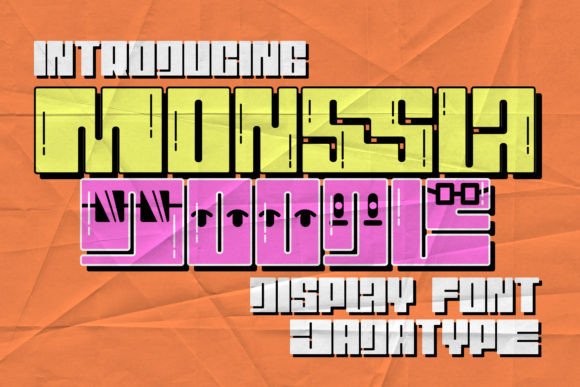
Unleash Your Inner Party Animal with Monssla Font: The Life of Any Design!
Prepare to captivate, inspire, and ignite your designs with Monssla Font, the ultimate display font that embodies the very essence of celebration and joy. Meticulously crafted by jadatype, Monssla is a block-bold font that exudes an infectious energy, making it the perfect choice for your next party-themed design project.
With its dynamic and eye-catching style, Monssla Font has the power to transform ordinary designs into extraordinary masterpieces. Let your creativity soar as you explore a world of possibilities with this remarkable font. Whether you're creating posters that scream excitement, t-shirts that radiate fun, or branding that sparks recognition, Monssla Font is your ultimate companion.
Dive into a realm of endless opportunities with Monssla Font. Its versatility extends far beyond party-themed designs. Its bold and confident strokes make it an ideal choice for branding projects, capturing the attention of potential customers and leaving a lasting impression. Social media platforms come alive with Monssla Font, adding a touch of vibrancy and energy to your posts, stories, and reels.
Embrace the PUA-encoded wonders of Monssla Font and unlock a treasure trove of glyphs and ligatures that add an extra layer of intrigue to your designs. Unleash your creativity and let your imagination run wild as you explore the boundless possibilities that await.
Don't settle for ordinary fonts that blend into the background. Choose Monssla Font, the life of any design, and watch as your projects come alive with an energy that captivates and inspires. Get ready to make a statement, leave a lasting impression, and create designs that ignite the party within!